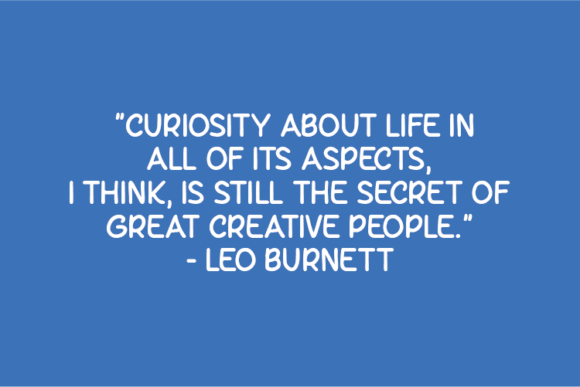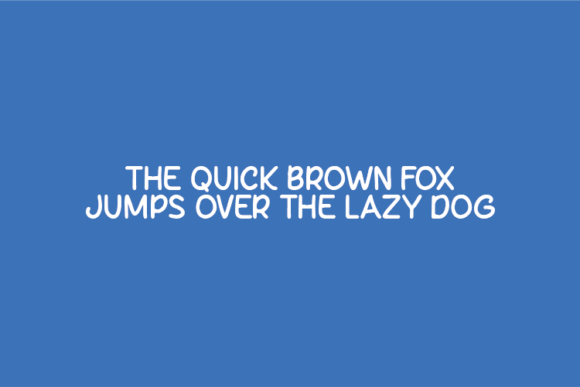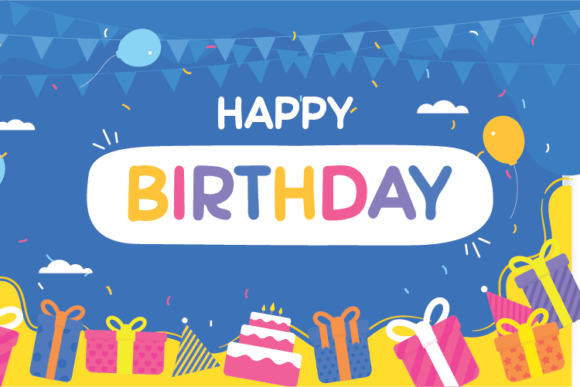
Introducing Happy Birthday Font: A Unique Handwritten Style for Your Designs
Are you tired of using the same old fonts for your designs? Look no further! Happy Birthday Font is a natural handwritten font that is sure to add a touch of personality to your projects. What makes this font truly special is that it was made without changing a single node in each character’s indentation, giving it a unique and interesting look.
The Story Behind Happy Birthday Font
Happy Birthday Font is a carefully crafted font that is designed to bring a sense of warmth and personality to your designs. The font’s creator aimed to create a font that would look like it was written by hand, without the monotony of traditional fonts. By preserving the natural indentation of each character, the font achieves a distinctive look that sets it apart from other handwritten fonts.
Key Features of Happy Birthday Font
- Natural Handwritten Style: Happy Birthday Font boasts a beautiful, natural handwritten style that is perfect for a wide range of design applications.
- Unique Indentation: The font’s unique indentation feature sets it apart from other fonts, giving it a distinctive character that is sure to capture attention.
- Versatile: Happy Birthday Font is perfect for use in quotes, notes, tees, and any product design where you want to add a personal touch.
Happy Birthday Font is a dream come true for designers and crafters who are looking for a unique and versatile font to add to their collection. Whether you’re creating custom t-shirts, greeting cards, or social media graphics, this font is sure to inspire your creativity. Its natural handwritten style and unique indentation make it perfect for:
- Quote Design: Add a touch of elegance to your quote designs with Happy Birthday Font.
- Note-taking: Use Happy Birthday Font to add a personal touch to your notes and journals.
- T-Shirt Design: Create eye-catching custom t-shirts with Happy Birthday Font.
- Product Design: Add a unique touch to your product designs, from stationery to home decor.
Why Choose Happy Birthday Font?
With so many fonts available, why choose Happy Birthday Font? Here are just a few reasons why this font stands out:
- Unique Style: Happy Birthday Font offers a unique and distinctive style that is sure to set your designs apart.
- High-Quality: Happy Birthday Font is a high-quality font that is designed to produce crisp and clear results, even at small sizes.
Here are a few tips and tricks to help you get the most out of Happy Birthday Font:
- Experiment with Sizes: Try out different font sizes to see how Happy Birthday Font looks in different contexts.
- Pair with Other Fonts: Experiment with pairing Happy Birthday Font with other fonts to create unique and interesting combinations.
- Use in Digital and Print Designs: Happy Birthday Font is perfect for use in both digital and print designs, from social media graphics to business cards.
With Happy Birthday Font, the possibilities are endless! Get creative and have fun with this amazing font.